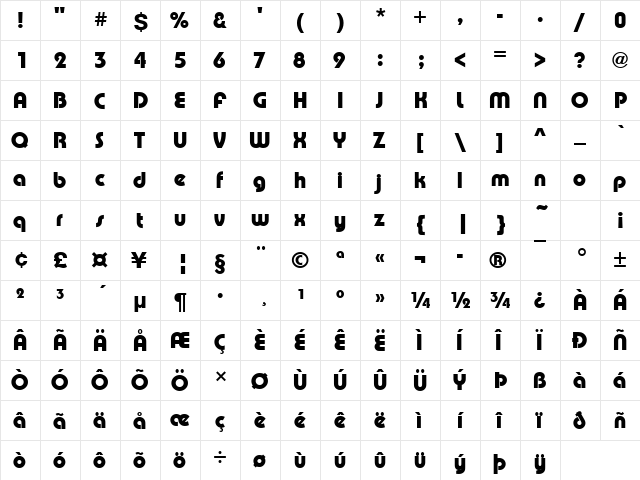
URWPuiseuxDDem Regular
Design Context for URWPuiseuxDDem Typeface
URWPuiseuxDDem takes a measured approach to typography — its balanced proportions and neutral character make it a reliable workhorse for both digital and print work.